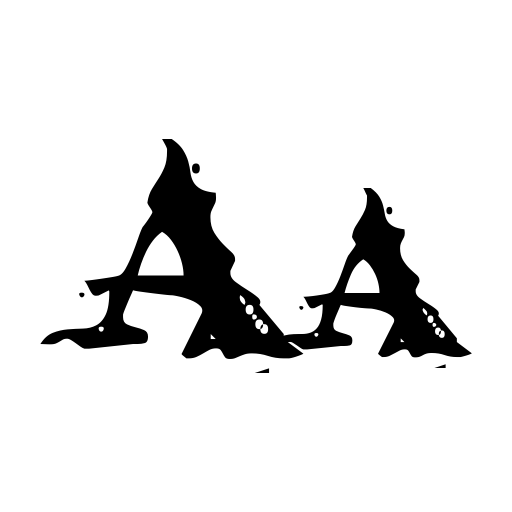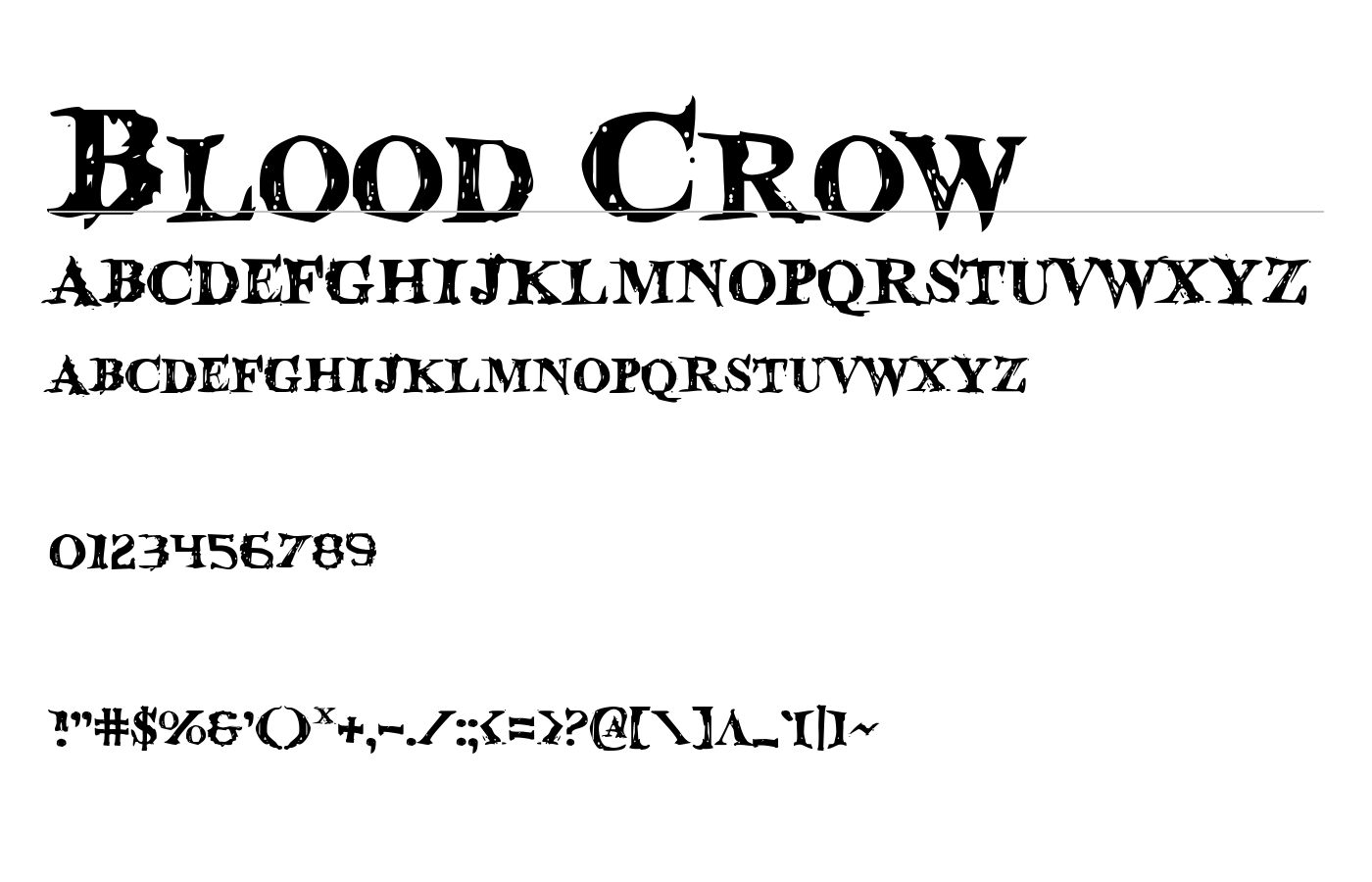
Blood Crow is a bold, decorative serif font with an eerie, distressed texture that gives it a dark, gothic personality. Its rough, irregular edges and high contrast strokes evoke a spooky, vintage horror vibe, making it ideal for Halloween-themed designs, posters, or any project needing a dramatic, mysterious atmosphere. This font works best in headlines and display uses where its unique, eye-catching style can create a memorable impact.
Blood Crow Font
About Blood Crow Font